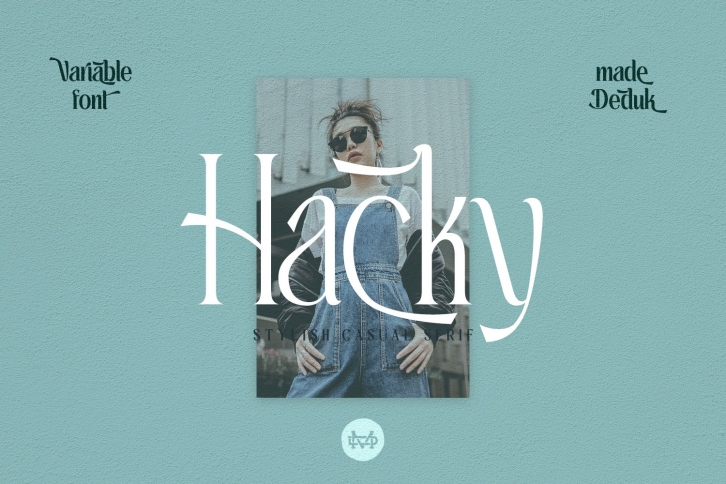
Hacky is a trendy and unique font with an authentic style. It was designed by madeDeduk and it's a great choice for creative people who need such a font. It was released on October 19, 2020 and the file size is 19.36 MB. Hacky will add an organic vibe to any design idea!